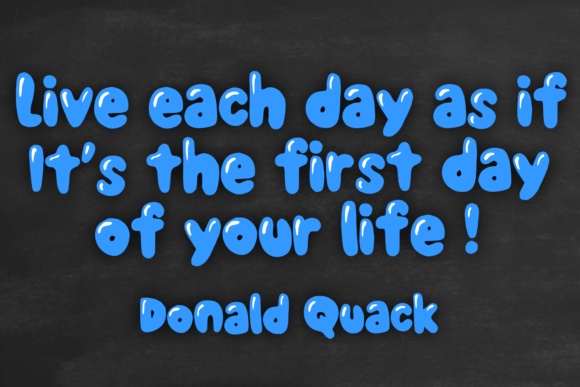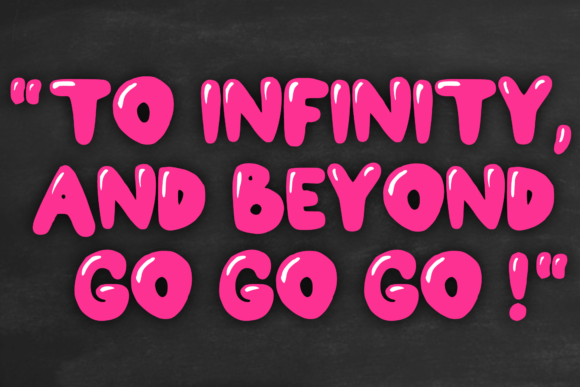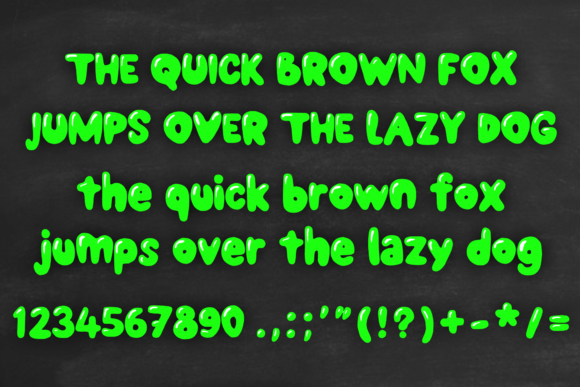
Introduction to Rubber Balloon Font
Rubber Balloon is a playful balloon-themed display font.
You can use it for anything ranging from t-shirts, kids’ book designs, greeting cards, stickers, and posters, blog writing, social media content, or anything that needs a casual touch Try it to create lovely designs and feel the good vibes with it.